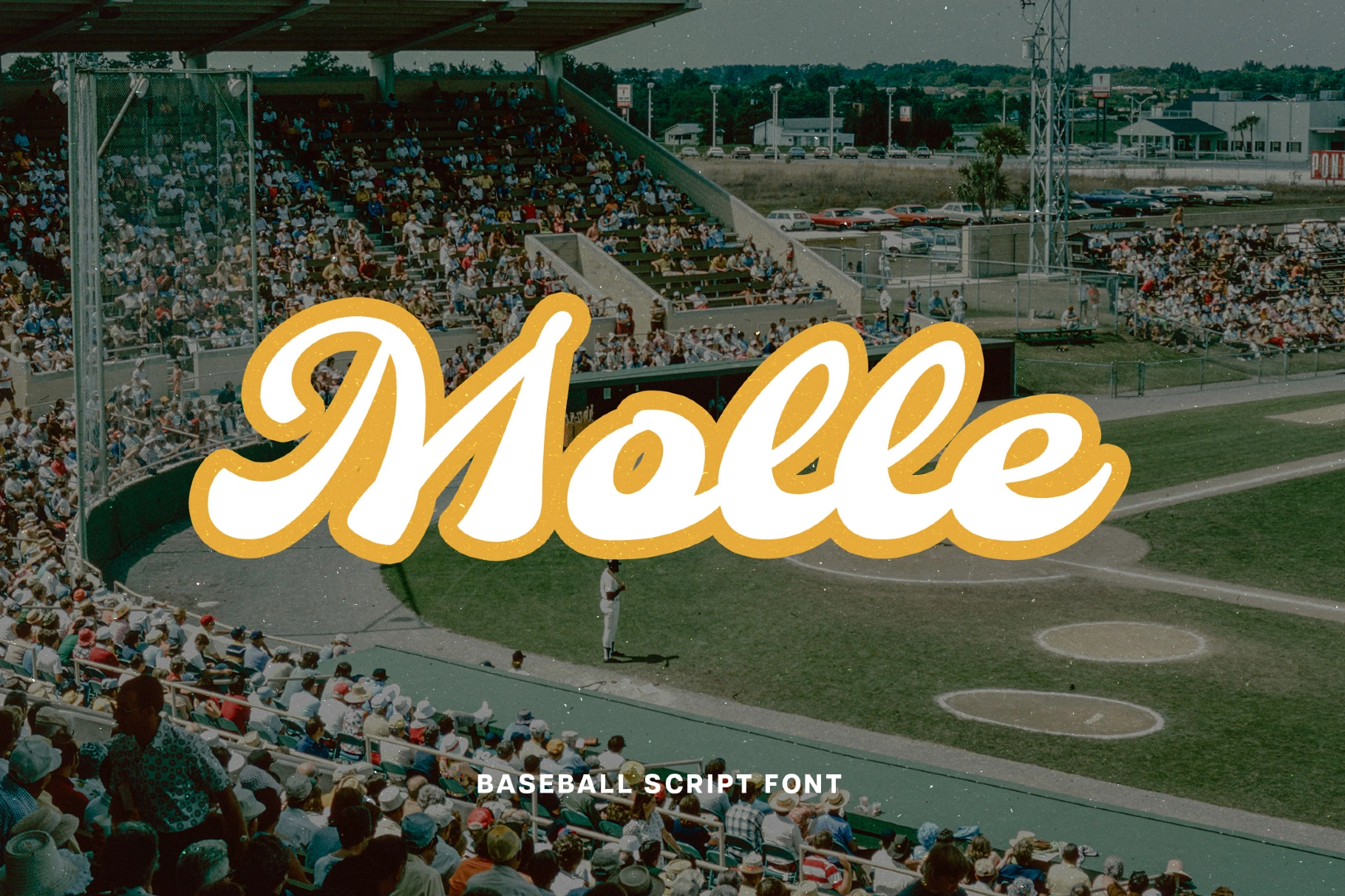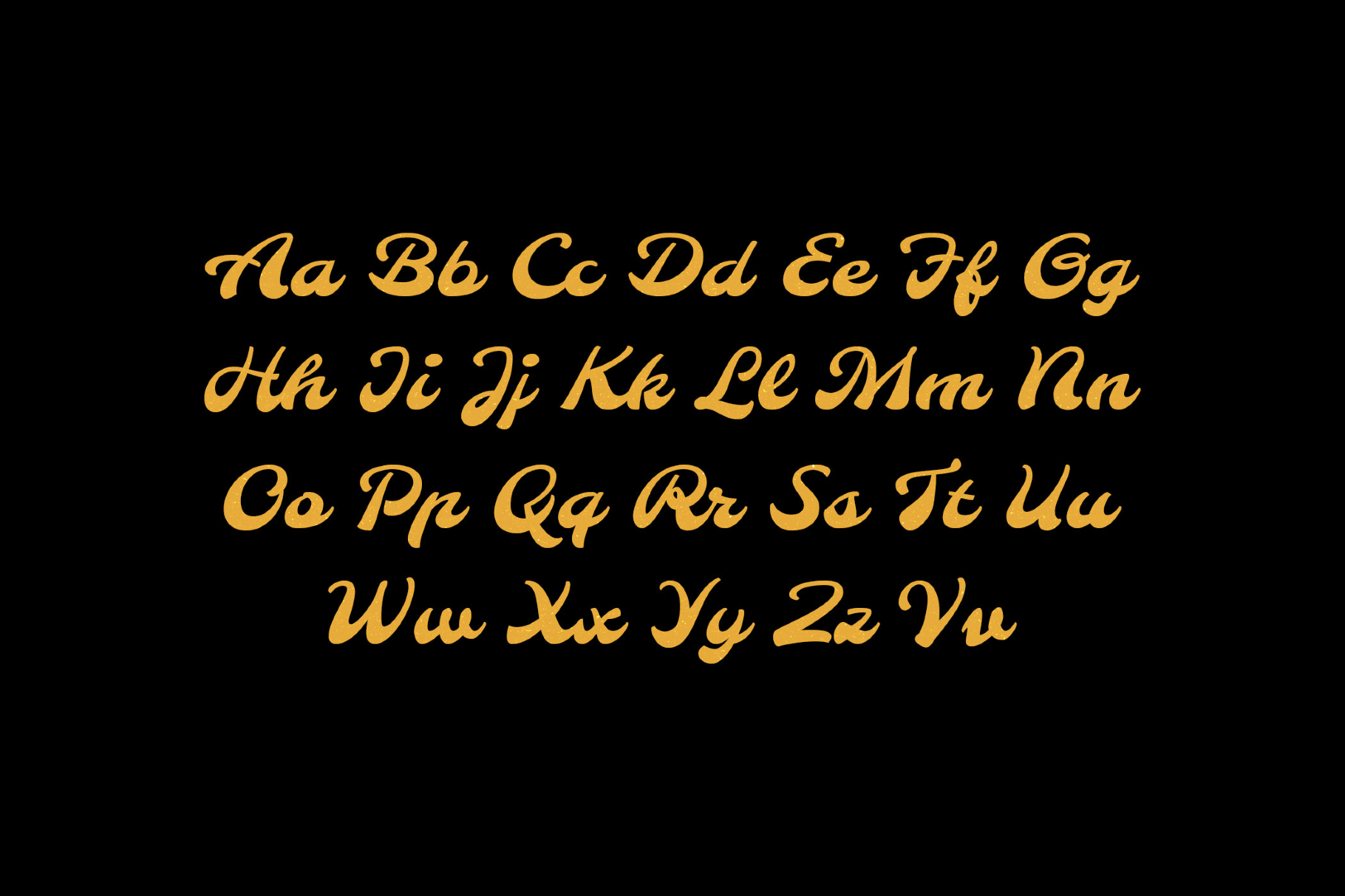
Molle Script
It is a bottom-heavy baseball script font with looping flourishes and a poster-lettered swagger, inspired by Italian poster lettering. Its forms borrow from hand-painted show bills, seaside café signs, and mid-century cinema titling. You can use this font for poster headlines, logo wordmarks, packaging titles, merchandise prints, event branding, café menus, and social banners.